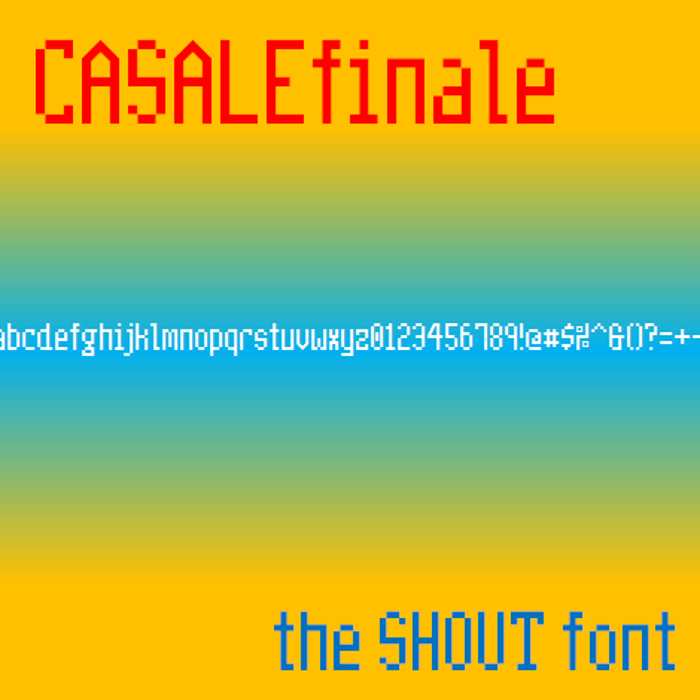
CasaleFinale NBP Font
The third and final draw of my Shout font. Differences from CasaleTwo are:
-Higher cap height
-Some characters are redesigned
-Alternate G and R at U+2122 and U+00AE
I think I've finally got it right this time, spuds!